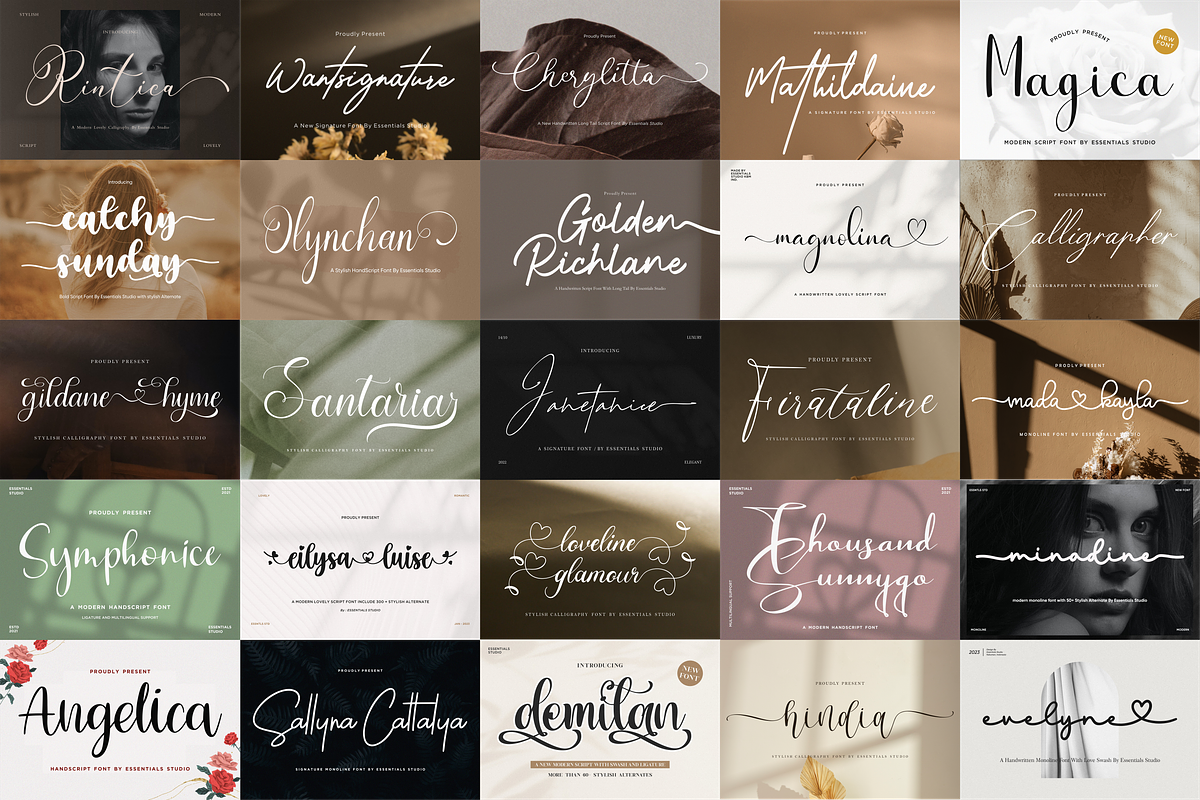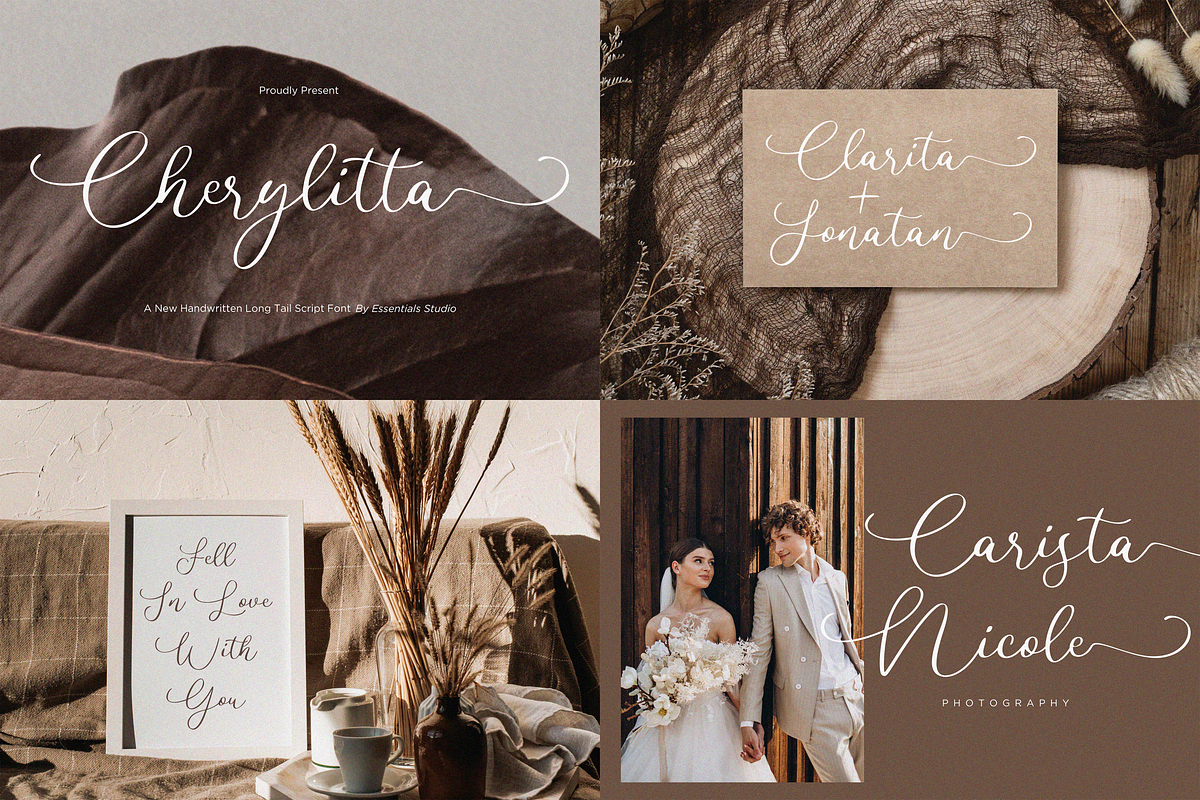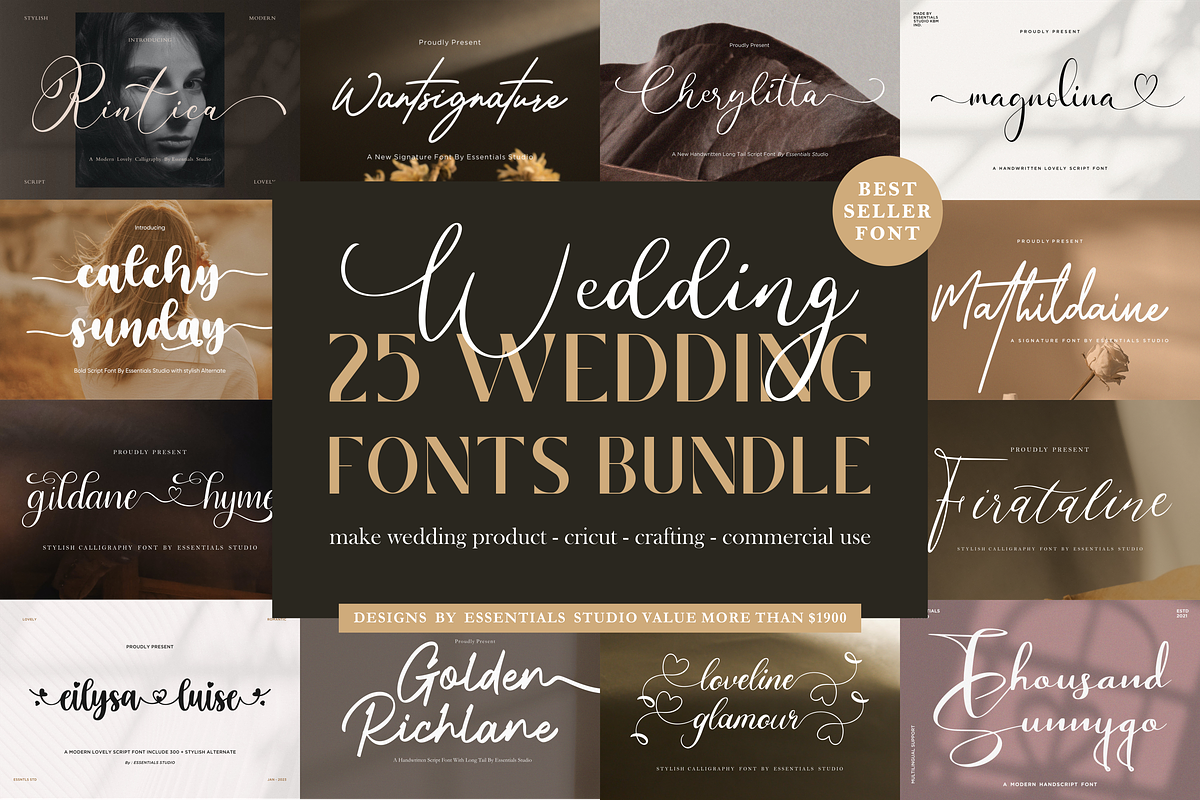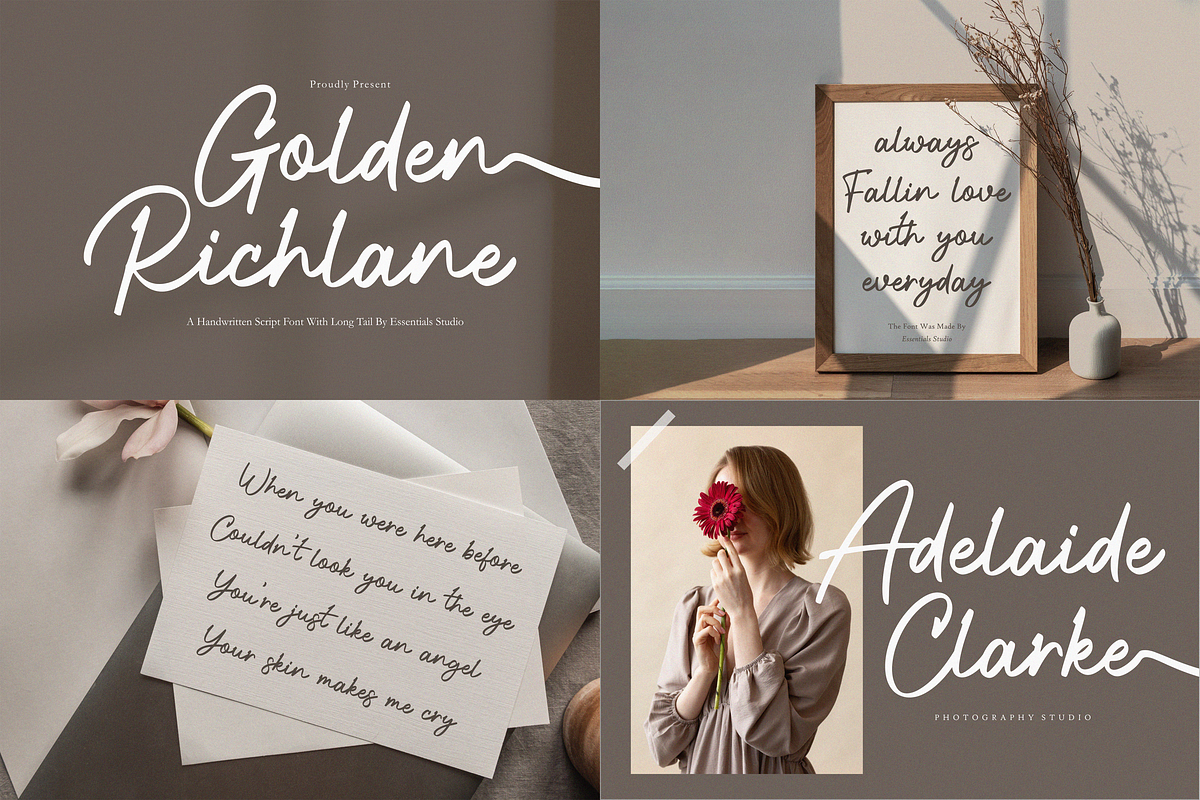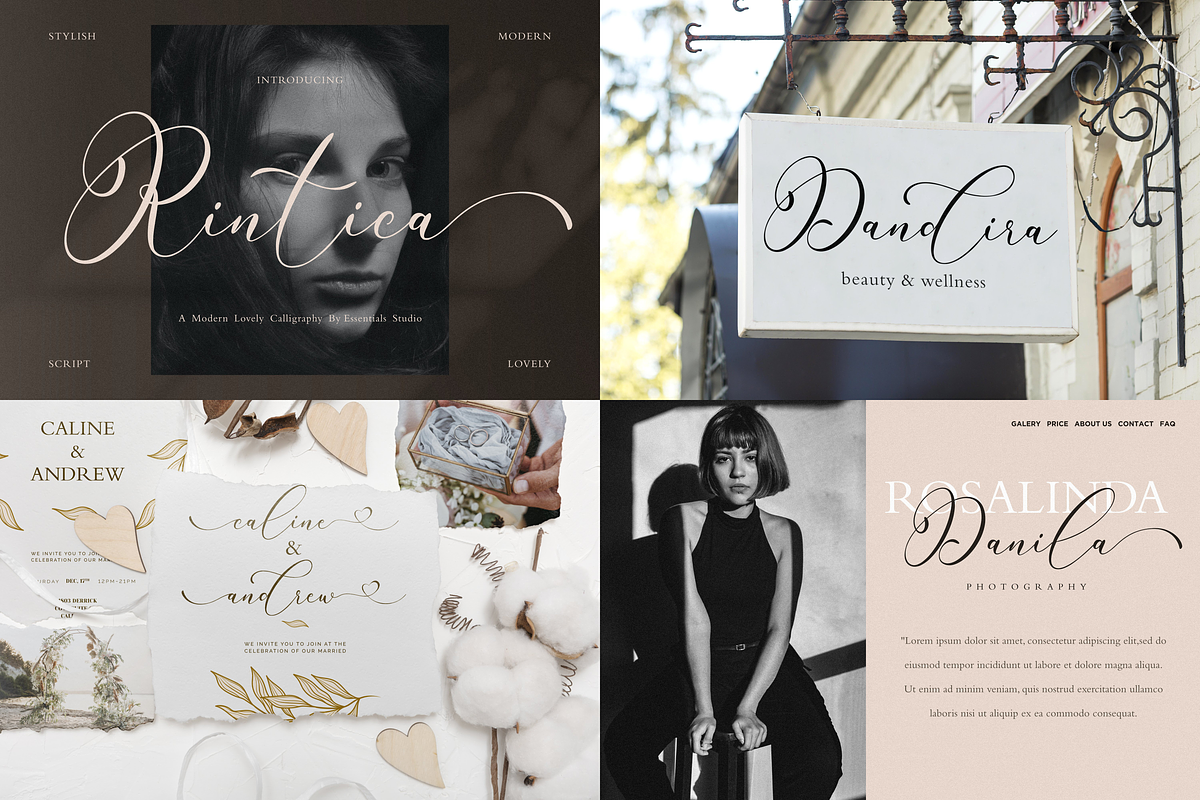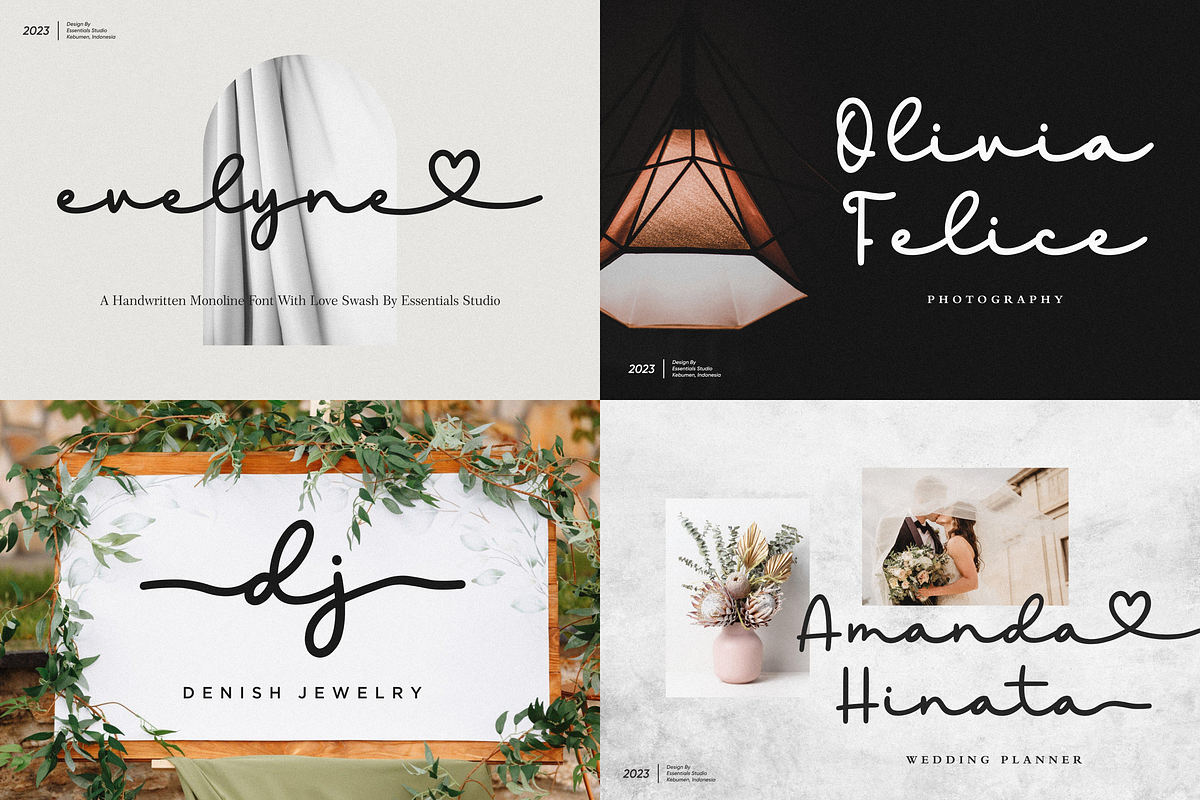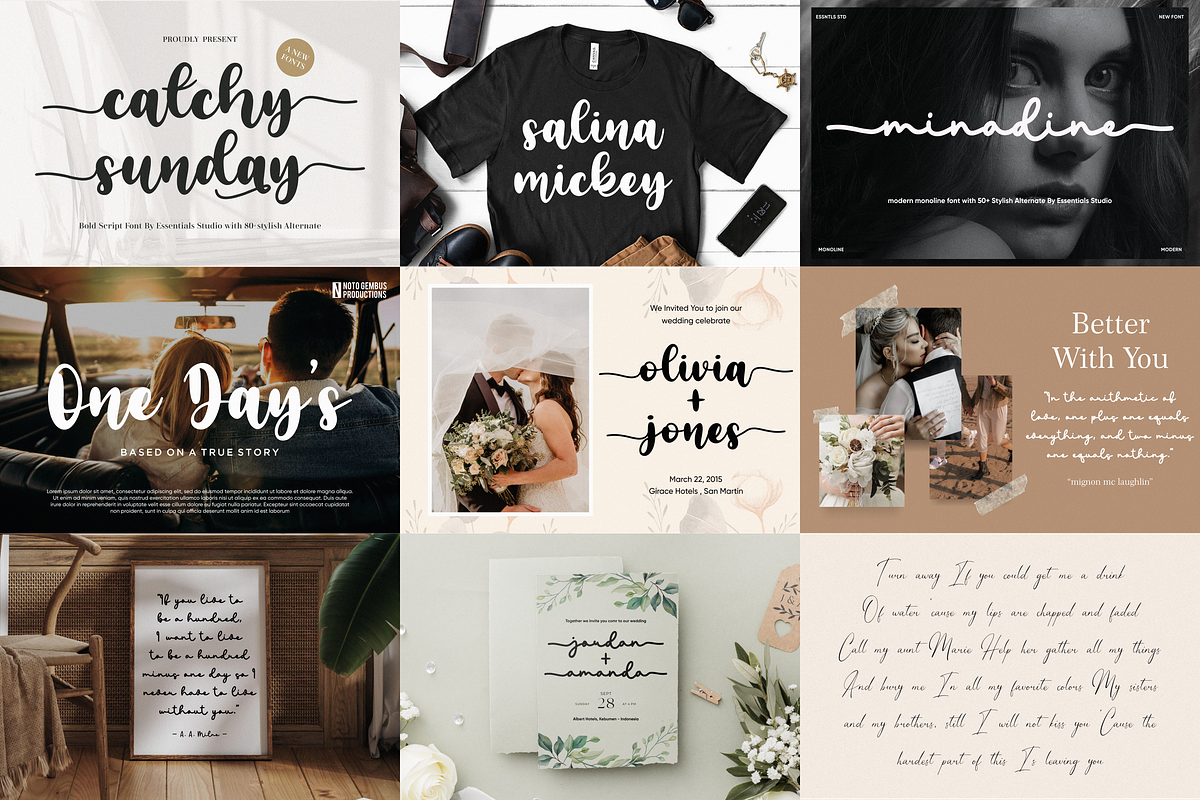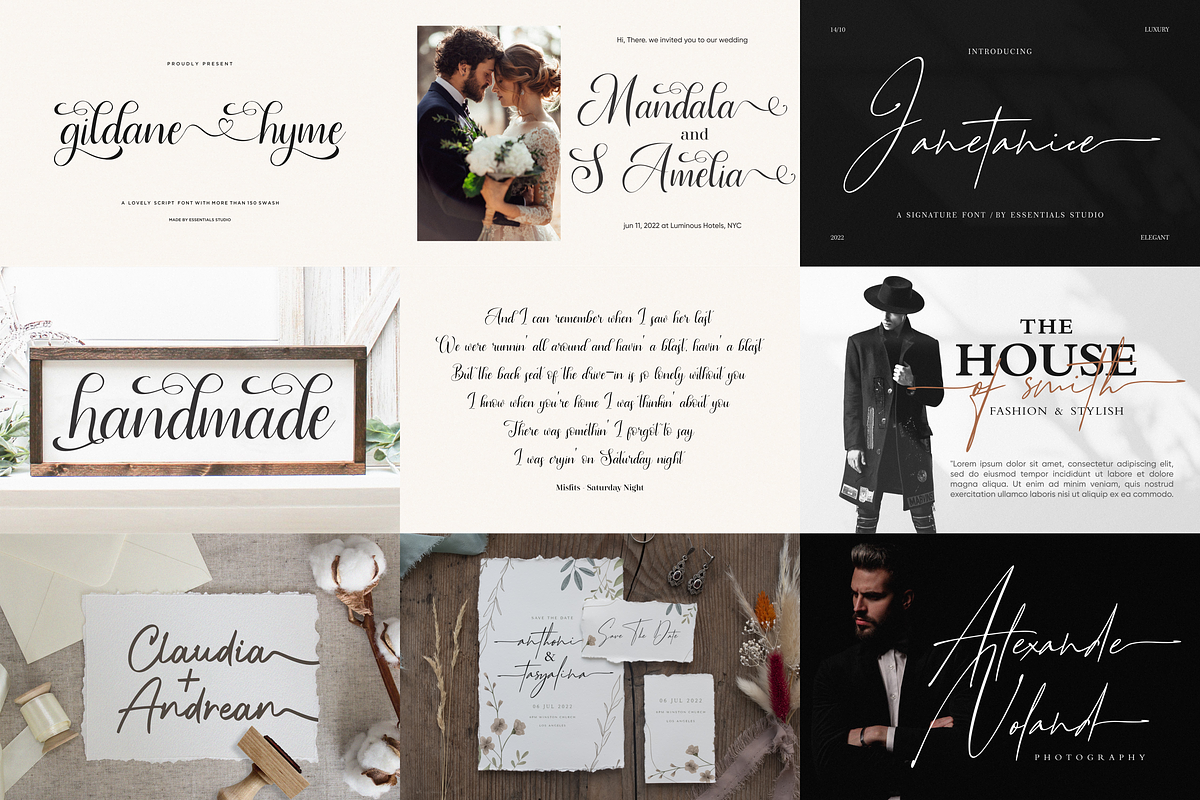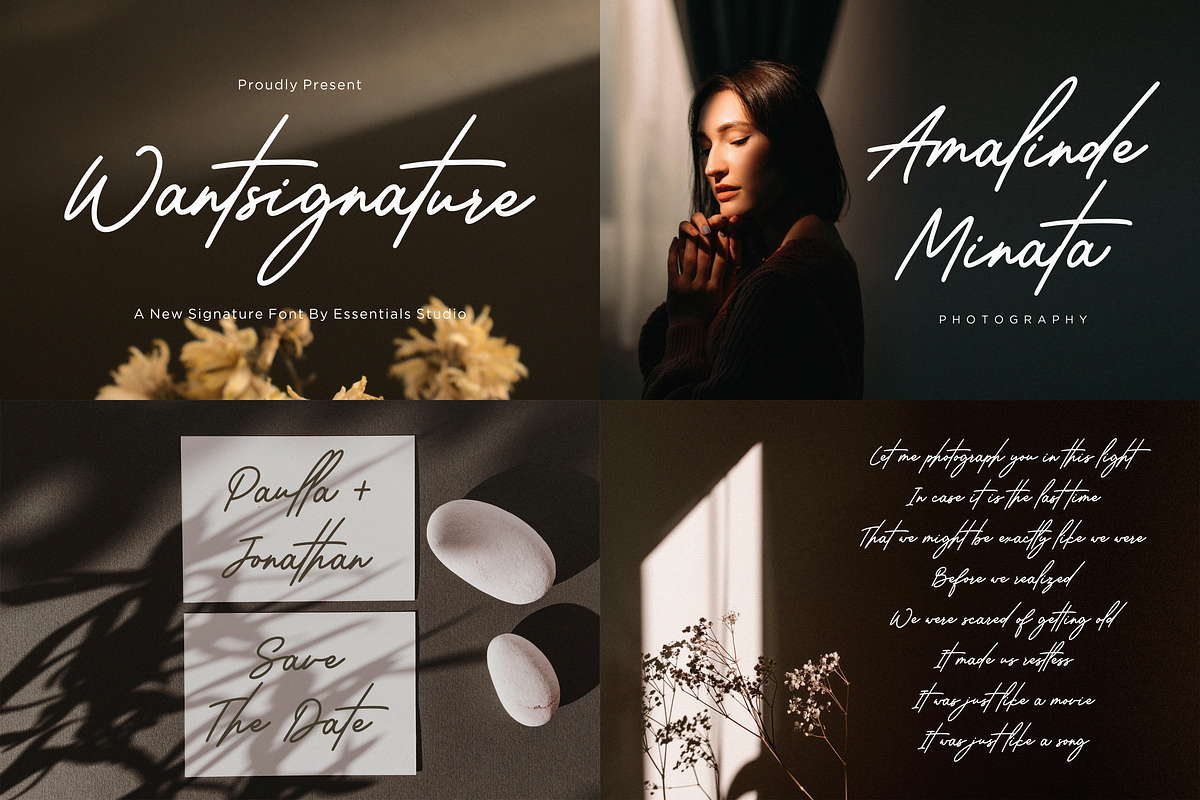
Best Wedding Calligraphy Font Bundle
Best Wedding Calligraphy Font Bundle.
It's perfect for a wedding invitations, save the date cards, feminine branding or personal gift cards. This awesome bundle will save you 90% off the regular price.